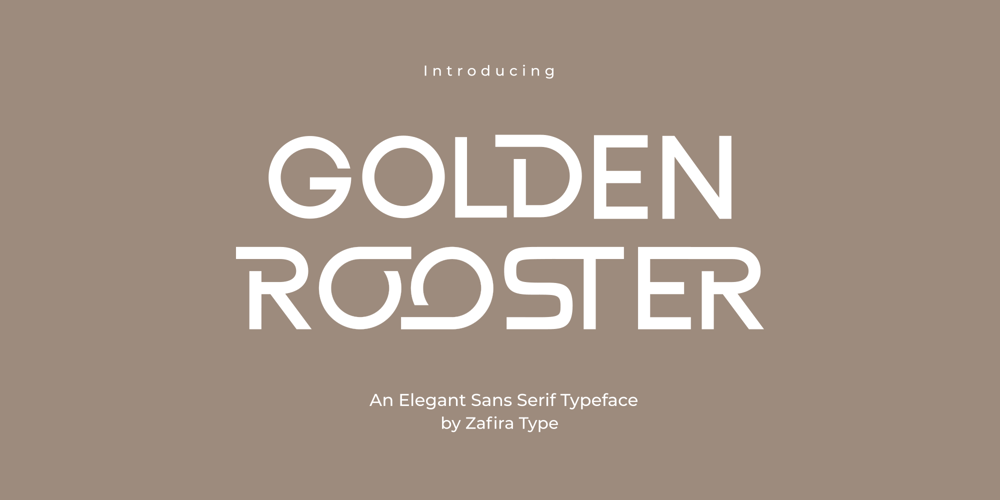
Golden Rooster
Golden Rooster font
Golden Rooster Font Family was designed by Su Hirno and published by Zafira Type. Golden Rooster contains 1 styles and family package options. Golden Rooster is an elegant and smooth sans serif font. Golden Rooster is a perfect use for a logo for branding, typography design, badge design, product packaging, invitations, quotes t-shirt design, label posters, special events, and anything that needs vintage taste.âThis font is PUA encoded which means you can access all of the amazing glyphs and ligatures with ease!